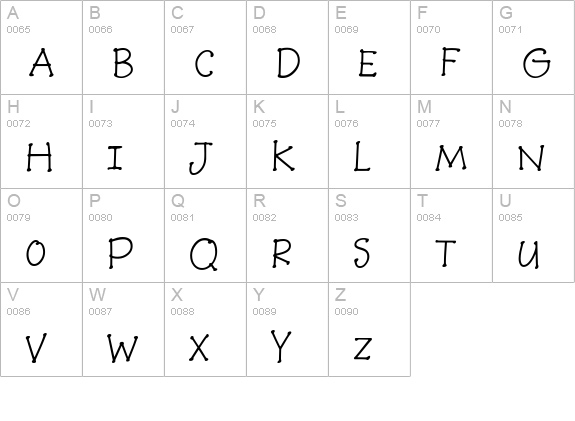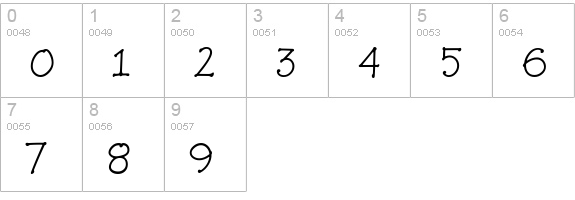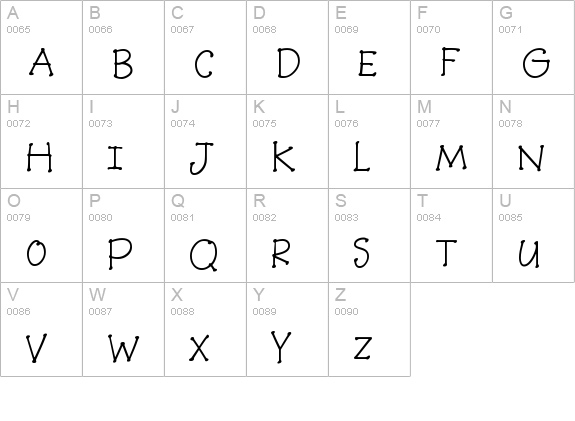
BaaBookHmk Font Details
Introducing BaaBookHmk font, a stunningly elegant typeface that merges modern sophistication with timeless charm. This versatile font is perfect for adding a touch of class to a wide range of design projects, from branding and logo design to invitations and packaging. BaaBookHmk font features a unique blend of clean lines and delicate curves, resulting in a visually pleasing and readable typeface that is sure to captivate your audience. Its balanced proportions and graceful letterforms make it suitable for both display and body text, ensuring versatility in its usage. But what truly sets BaaBookHmk font apart is the fact that it is not only visually appealing but also freely available. Yes, that's right! You can easily download this font without any cost at FontsMarket.com. This means that designers, creators, and typographers alike can have access to this beautiful font without breaking the bank. Whether you're a seasoned professional or an aspiring designer, BaaBookHmk font offers a wealth of creative possibilities. Its extensive character set includes uppercase and lowercase letters, numerals, punctuation marks, and special characters, providing you with all the tools you need to bring your design visions to life. With its timeless elegance and the added bonus of being freely accessible, BaaBookHmk font is a must-have addition to your font collection. So why wait? Visit FontsMarket.com today and experience the beauty and versatility of this exquisite font. Download BaaBookHmk font and let your creativity soar to new heights.